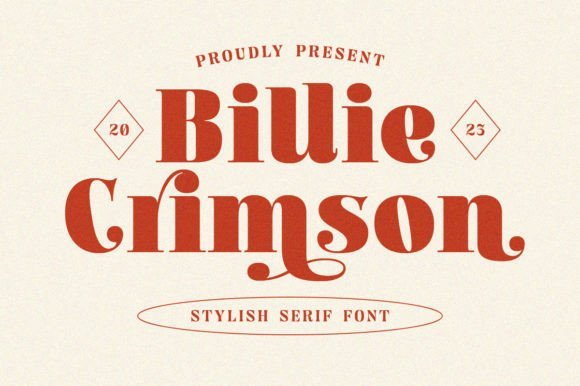
Discover the Timeless Elegance of the Billie Crimson Font
As a designer, there’s nothing quite like the feeling of creating something beautiful and timeless. For me, it starts with a blank page, a spark of inspiration, and the perfect font to bring it all together. And that’s exactly where the Billie Crimson Font comes in – a classic serif font that exudes confidence and sophistication, perfect for projects that demand a touch of elegance.
The Billie Crimson Font is a beautifully crafted serif font that’s designed to make a lasting impression. With its refined curves and understated design, it’s ideal for book covers, high-end branding, and any project that requires a sense of refinement and sophistication. As a designer, you’ll love the ease of use and versatility of this font, which is PUA encoded to give you access to all its amazing glyphs and ligatures.
Whether you’re working on a high-end branding project or creating a book cover, the Billie Crimson Font is sure to elevate your design to new heights. Its timeless elegance and sophistication make it a valuable addition to any designer’s toolkit, and its ease of use means you can focus on what really matters – creating something truly beautiful.
Billie Crimson Font Key Features
- Font Family: Billie Crimson
- Font Styles: Regular, Italic, Bold, Bold Italic
- Unique Characteristics: Billie Crimson features a unique blend of elegance and sophistication, with a subtle vintage flair, making it suitable for a wide range of applications, including luxury brands, high-end fashion, and premium products.
Billie Crimson Font Review
I recently had the chance to work with the Billie Crimson font, and I’m sharing my honest thoughts with you.
- The Billie Crimson font has a unique and bold personality that can add a touch of sophistication to any design project.
- The font’s crimson hue is rich and vibrant, making it perfect for designs that require a pop of color.
- The font’s bold weight makes it ideal for headlines and titles, drawing attention and creating visual interest.
Limitsations ⚠️
- The font’s bold weight can be overwhelming if used extensively throughout a design project.
- The font may not be suitable for body text, as it can be difficult to read in smaller sizes.
- The font’s crimson hue may not be suitable for designs that require a more neutral color palette.
Overall, I think the Billie Crimson font is a great addition to any designer’s toolkit. While it may have some limitations, its unique personality and bold style make it perfect for designs that require a touch of elegance and sophistication.
Getting the Most Out of Billie Crimson
For the best results, use Billie Crimson in bold or italic styles to add emphasis to your text.
Pair Billie Crimson with other fonts that have a similar aesthetic to create a cohesive design.
Experiment with different font sizes and colors to find the perfect balance for your design.
Billie Crimson is ideal for:
1. Branding and logos: Its unique and eye-catching design makes it perfect for creating memorable brand identities.
2. Headlines and titles: Billie Crimson’s bold and dramatic style is perfect for grabbing attention and highlighting important information.
Alternatives to Billie Crimson Font
Great Vibes Font is a beautiful, handwritten font that is perfect for creative projects, invitations, and social media graphics. It’s a great alternative to Billie Crimson Font when you need a more elegant and sophisticated look.
Comparison: Great Vibes Font is more refined and elegant compared to Billie Crimson Font, which has a more playful and bold feel. Great Vibes Font is ideal for projects that require a touch of sophistication, while Billie Crimson Font is better suited for projects that need a bold and eye-catching look.